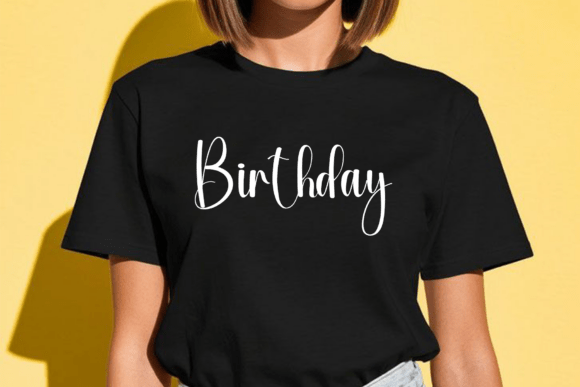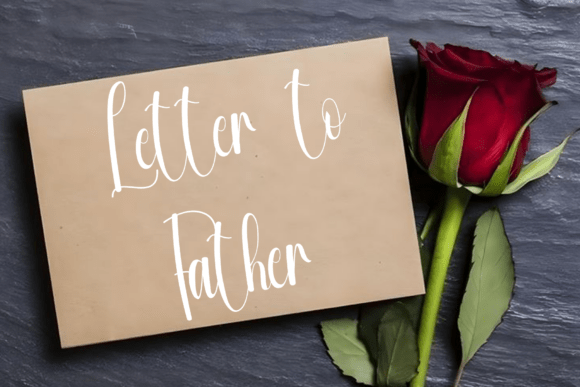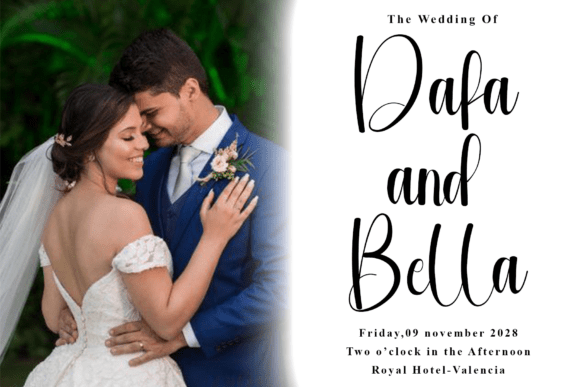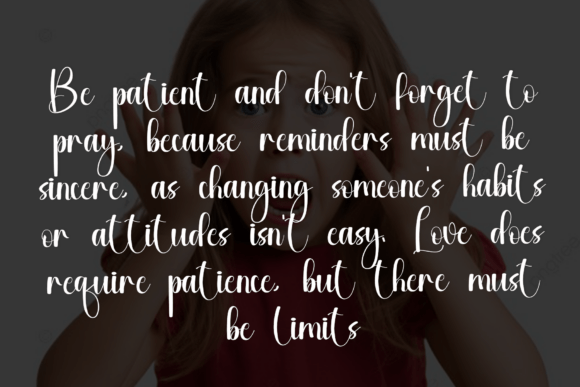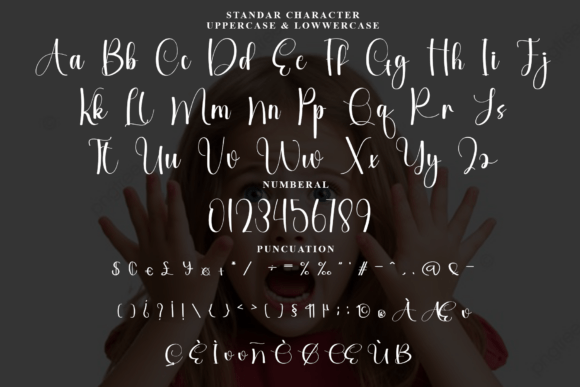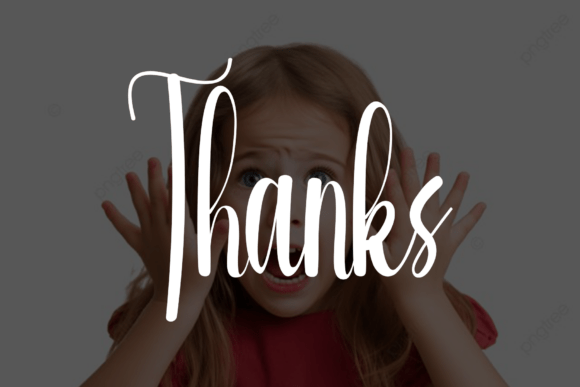
Introducing Blinking Font: Elevate Your Design with a Sophisticated Autumnal Script
In the world of typography, a well-crafted font can elevate your design from ordinary to extraordinary. For those seeking a unique and professional visual voice, Blinking Font is an exceptional choice. This modern handwritten script font embodies the essence of autumn, making it perfect for seasonal marketing, artisanal branding, and sophisticated editorial content.
Characteristics of Blinking Font
Blinking Font boasts a distinctive, rhythmic script style that sets it apart from other typefaces. Its high-contrast strokes feature thick, grounded downstrokes and delicate hairline connectors, creating a sense of elegance and refinement. The vertically elongated letterforms and graceful, looping ascenders evoke the feeling of high-end inkwork, adding a touch of luxury to any design.
Design Features and Applications
Blinking Font is a versatile typeface suitable for various design applications, including:
- Seasonal Autumn Marketing: Capture the warmth and coziness of the autumn season with Blinking Font. Its unique and professional visual voice makes it perfect for promotional materials, such as posters, flyers, and social media graphics.
- Artisanal Food Packaging: Add a touch of sophistication to your food packaging with Blinking Font. Its elegant script style and high-contrast strokes make it ideal for labeling gourmet products, such as specialty teas, coffee, or baked goods.
- Boutique Event Invitations: Create stunning event invitations with Blinking Font. Its luxurious feel and rhythmic script style make it perfect for weddings, harvest festivals, and other upscale events.
- Sophisticated Editorial Headers: Elevate your editorial content with Blinking Font. Use it as a header font for articles, blog posts, or magazine features to add a touch of elegance and refinement.
Why Choose Blinking Font?
With Blinking Font, you can:
- Stand out from the crowd: Blinking Font’s unique and professional visual voice sets it apart from more traditional typefaces, making it perfect for designers and crafters seeking to create distinctive designs.
- Evoking a sense of luxury: The font’s high-end inkwork-inspired design and elegant script style evoke a sense of sophistication and refinement, perfect for high-end branding and editorial content.
- Enhance your brand’s visual identity: Blinking Font’s autumnal visual voice and rhythmic script style make it an excellent choice for seasonal branding and marketing campaigns.
Tips for Using Blinking Font Effectively
To get the most out of Blinking Font, consider the following tips:
- Use it sparingly: Blinking Font’s elegance and sophistication are best showcased when used sparingly. Use it as a header font or for key messaging to create a lasting impression.
- Pair it with complementary fonts: Combine Blinking Font with complementary fonts to create visual interest and hierarchy. Consider pairing it with sans-serif fonts for a modern contrast.
- Experiment with color: Blinking Font’s high-contrast strokes and elegant script style make it perfect for experimenting with color. Try pairing it with warm, autumnal hues to enhance its seasonal visual voice.
Blinking Font is a sophisticated and rhythmic script font that embodies the essence of autumn. Its unique and professional visual voice makes it perfect for designers and crafters seeking to create distinctive designs. With its high-contrast strokes, elegant script style, and luxurious feel, Blinking Font is an excellent choice for seasonal marketing, artisanal branding, and sophisticated editorial content. By incorporating Blinking Font into your design repertoire, you’ll be able to elevate your projects and create stunning visual experiences that leave a lasting impression.